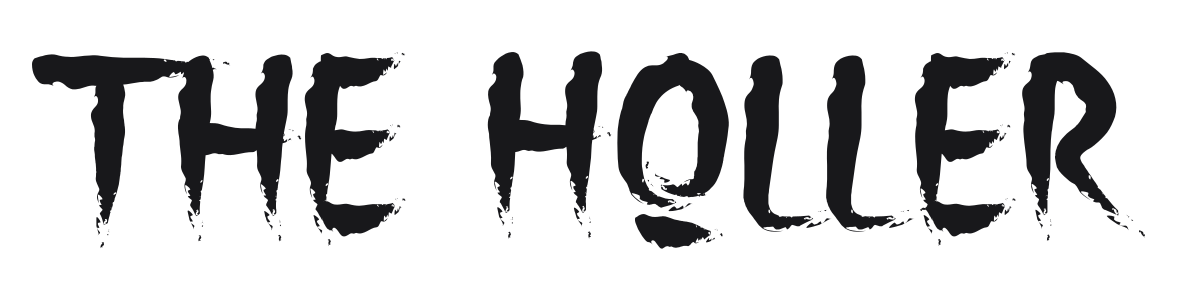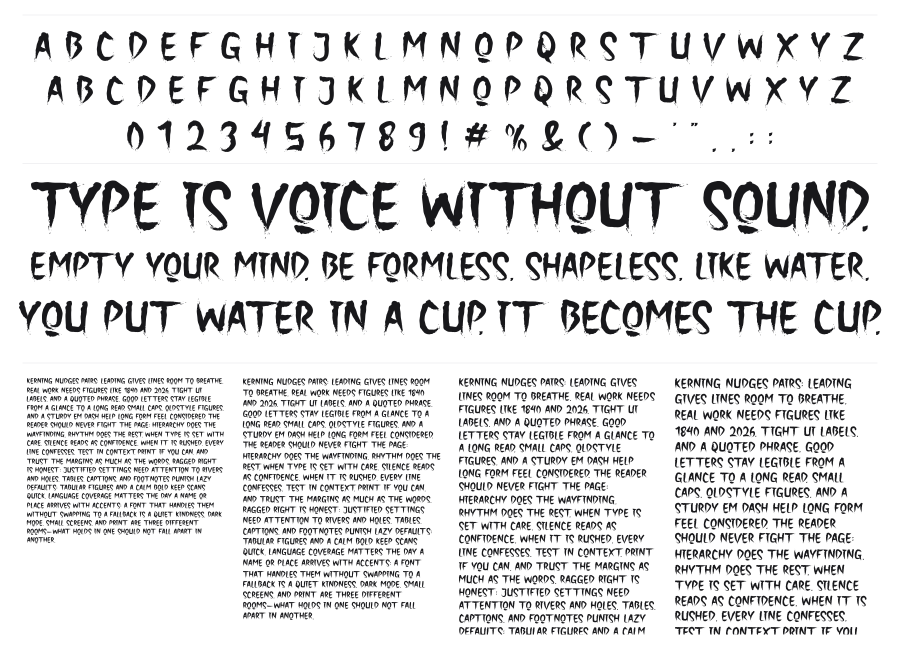
The Holler
The Holler is a heavy distressed brush font built around a Halloween horror aesthetic. Thick strokes are torn, eroded, and dripping with ink texture, giving every word a visceral, hand-painted intensity. It commands attention on posters, album covers, and anything that needs a genuinely unsettling edge.